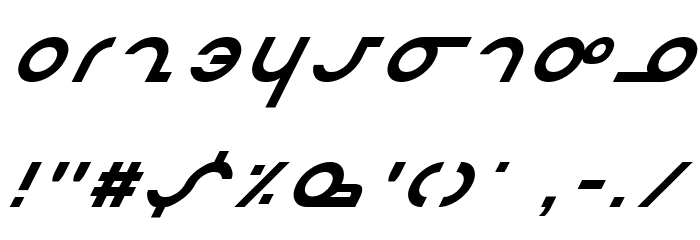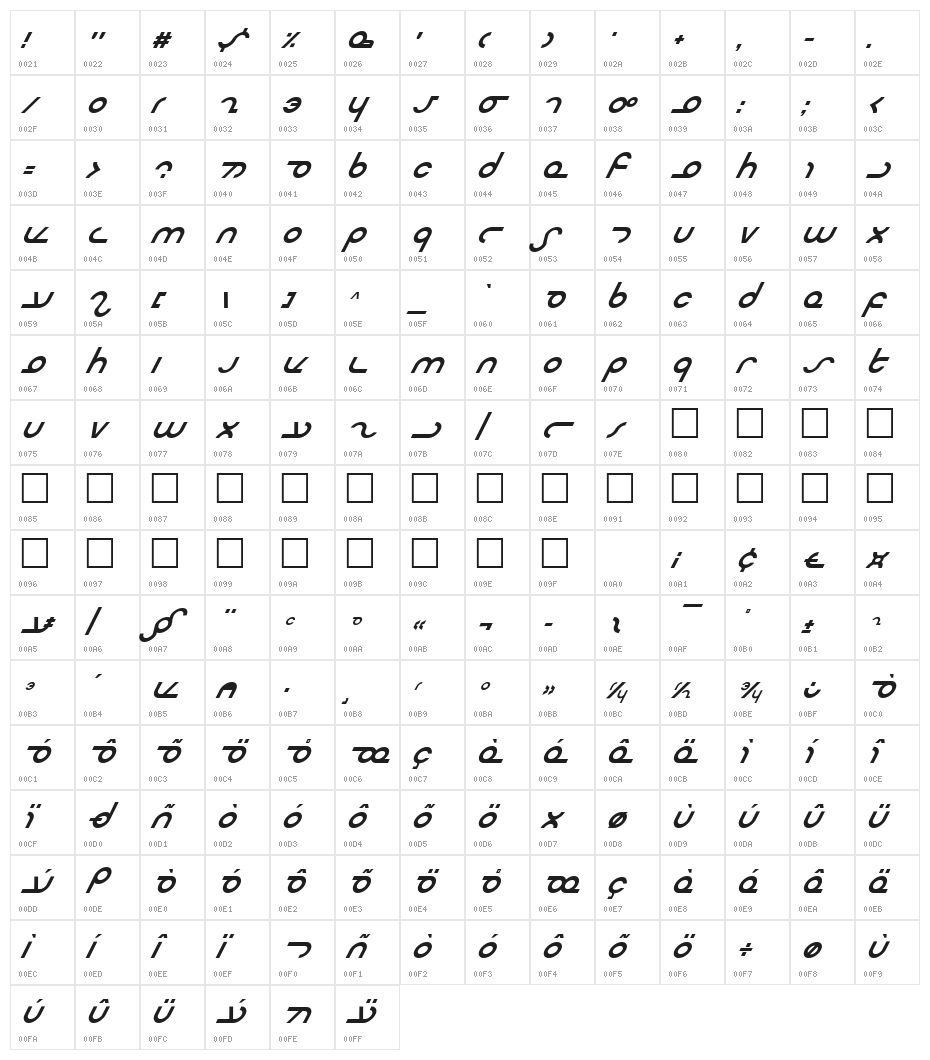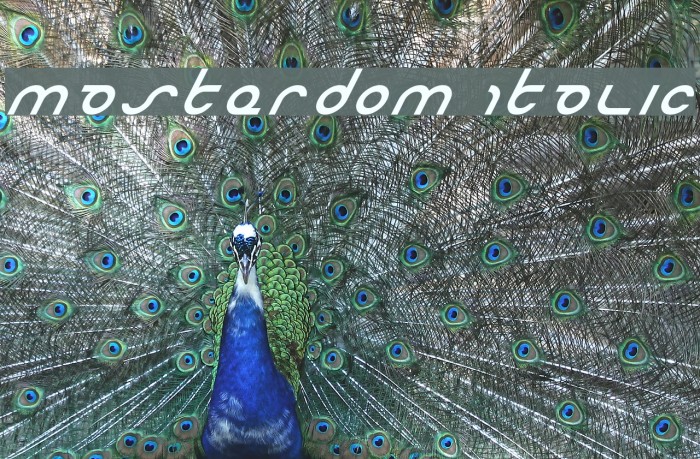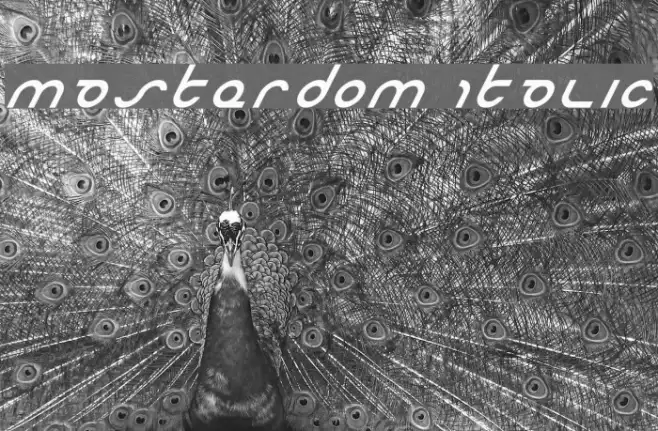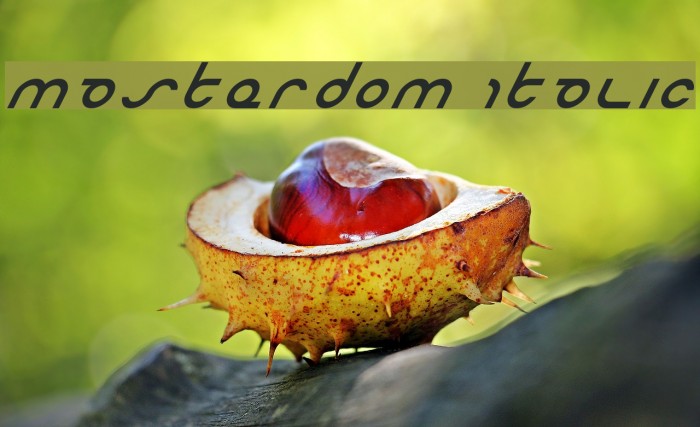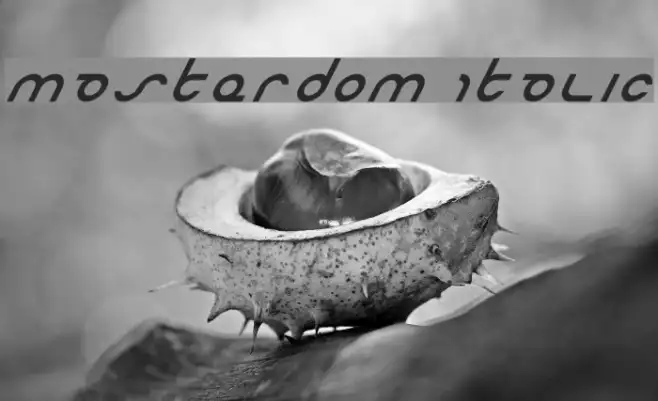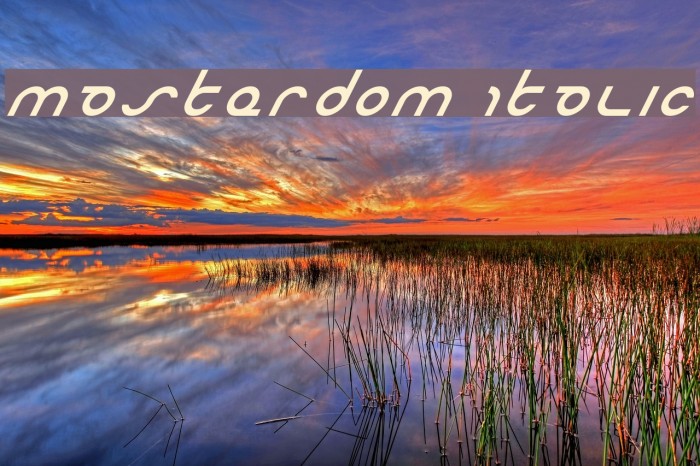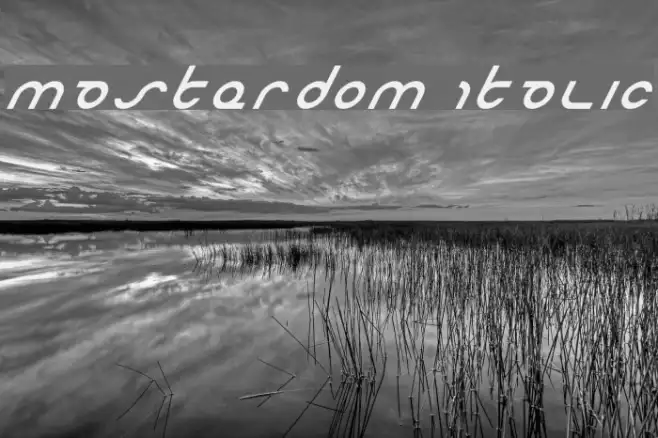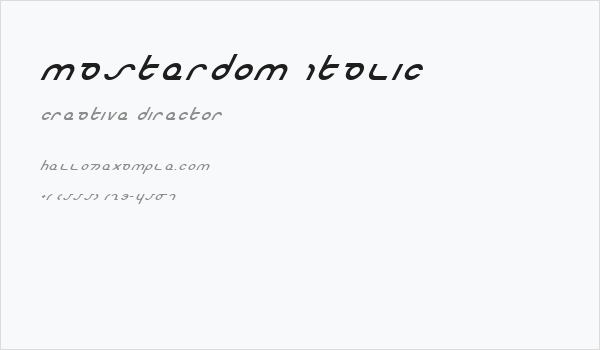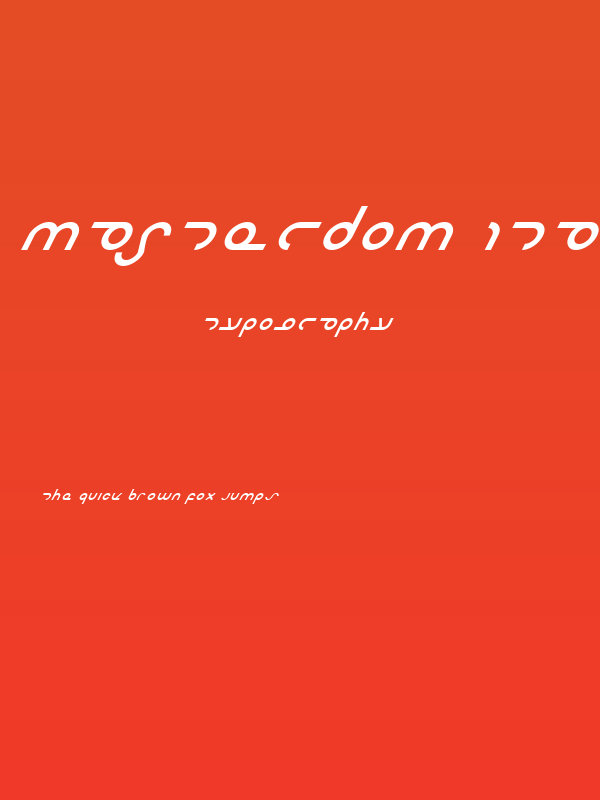
Masterdom Italic Font
Masterdom Italic Description
This font features a sleek and modern italic style with smooth, flowing curves and a slight slant that gives it a dynamic and elegant appearance. The characters are well-balanced, with a consistent stroke width that provides a harmonious look across both uppercase and lowercase letters. The numerals and special characters maintain the same fluidity, ensuring a cohesive design throughout. Its clean lines and contemporary feel make it suitable for a variety of design applications, offering a touch of sophistication and style.